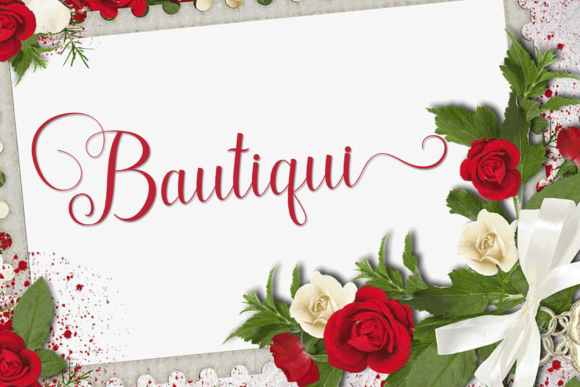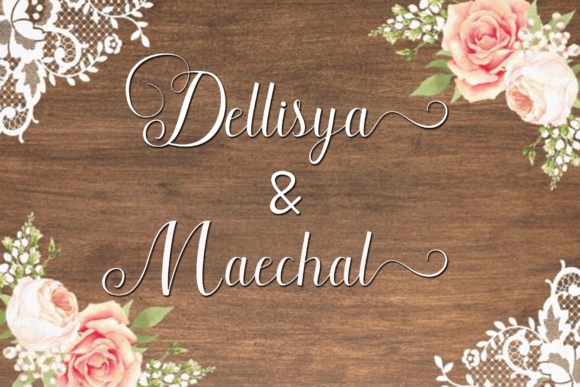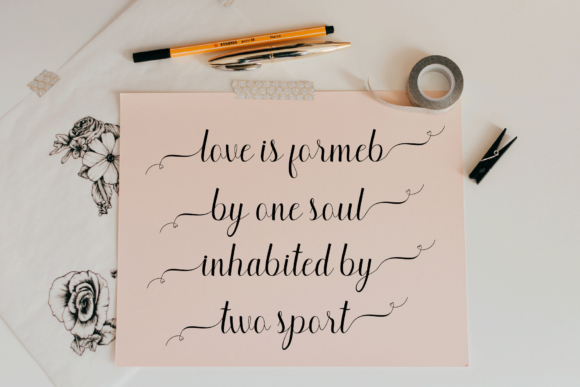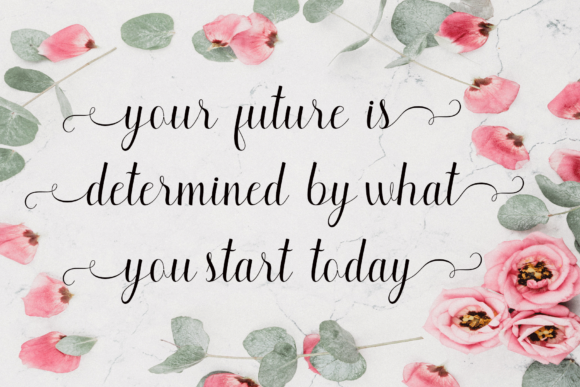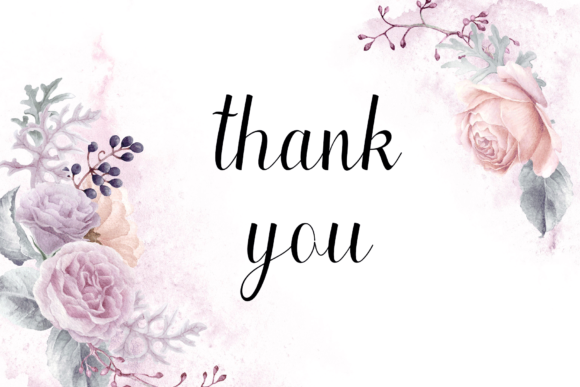
Bahagia Font: Elevate Your Designs with Elegance and Sophistication
Are you looking for a font that can add a touch of sophistication and elegance to your designs? Look no further than Bahagia Font. This playful and dynamic calligraphy script font is perfect for a wide range of applications, from wedding invitations to branding, and is sure to take your designs to the next level.
The Versatility of Bahagia Font
Bahagia Font is an incredibly versatile calligraphy script font that can be used in a variety of design projects. Its elegant and sophisticated style makes it perfect for:
- Digital graphics and social media assets
What Makes Bahagia Font Special?
Bahagia Font is more than just a beautiful calligraphy script font. It also features a range of special features that make it stand out from the crowd. These include:
- PUA Encoding: Bahagia Font is PUA encoded, which means you can access all of the stunning glyphs and swashes with ease. This makes it easy to add unique and creative touches to your designs.
- Alternate Glyphs: The font features a range of alternate glyphs, allowing you to add variety and interest to your designs.
- Ligatures: Bahagia Font also includes ligatures, which help to create a more natural and fluid look in your designs.
The Benefits of Using Bahagia Font
So why should you choose Bahagia Font for your next design project? Here are just a few benefits of using this amazing font:
- Elegance and Sophistication: Bahagia Font adds a touch of elegance and sophistication to any design, making it perfect for high-end branding and luxury goods.
- Flexibility: The font’s versatility means it can be used in a wide range of design projects, from digital graphics to print materials.
- Easy to Use: With PUA encoding and a range of special features, Bahagia Font is easy to use and customize, even for designers with limited experience.
Tips for Using Bahagia Font
To get the most out of Bahagia Font, here are a few tips to keep in mind:
- Use it sparingly: While Bahagia Font is beautiful, it can be overwhelming if used too much. Use it sparingly to add a touch of elegance to your designs.
- Experiment with glyphs and swashes: With PUA encoding, you can access a range of stunning glyphs and swashes. Experiment with these to add unique touches to your designs.
- Pair it with other fonts: Bahagia Font looks great when paired with other fonts. Try pairing it with a bold sans-serif font for a striking contrast.
Bahagia Font is a versatile and elegant calligraphy script font that is perfect for designers and crafters looking to add a touch of sophistication to their designs. With its PUA encoding, alternate glyphs, and ligatures, this font is easy to use and customize. Whether you’re working on a wedding invitation, branding project, or crafting DIY project, Bahagia Font is sure to elevate your designs to the next level.